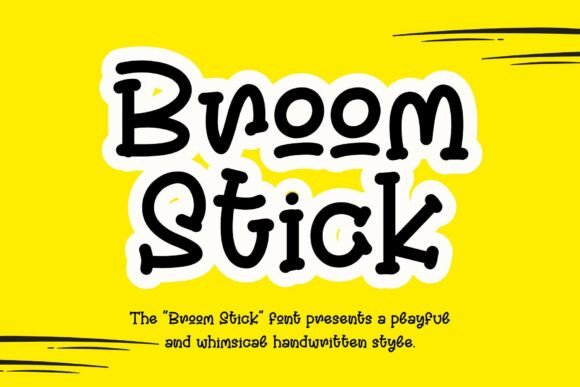
Broom Stick Font: A Playful and Whimsical Handwritten Style
The Broom Stick font is a delightful and charming handwritten style that exudes a playful and whimsical vibe. Its tall, rounded characters and slightly irregular baseline give it a casual and friendly design that’s perfect for a variety of creative projects. In this article, we’ll explore the features and benefits of the Broom Stick font, and discuss how it can be used to add a touch of joy and imagination to your designs.
What is Broom Stick Font?
The Broom Stick font is a type of handwritten font that features tall, rounded characters with a slightly irregular baseline. Its casual and friendly design gives off a lighthearted and fun vibe, making it perfect for projects that aim to express joy and imagination. The font’s playful and whimsical style is reminiscent of children’s books and cartoon titles, making it a great choice for designs that require a youthful and energetic feel.
Features of Broom Stick Font
The Broom Stick font has several features that make it a unique and versatile design. Some of its key features include:
- Tall and rounded characters: The font’s tall and rounded characters give it a playful and whimsical feel that’s perfect for children’s books and cartoon titles.
- Slightly irregular baseline: The font’s slightly irregular baseline adds to its casual and friendly design, giving it a handmade feel that’s perfect for creative projects.
- Casual and friendly design: The font’s casual and friendly design makes it perfect for projects that require a lighthearted and fun vibe.
Benefits of Using Broom Stick Font
The Broom Stick font offers several benefits for designers and creatives. Some of its key benefits include:
- Perfect for children’s books and cartoon titles: The font’s playful and whimsical style makes it perfect for children’s books and cartoon titles that require a youthful and energetic feel.
- Great for product packaging: The font’s casual and friendly design makes it perfect for product packaging that requires a lighthearted and fun vibe.
- Ideal for creative projects: The font’s playful and whimsical style makes it perfect for creative projects that aim to express joy and imagination.
- Use it for headings and titles: The font’s playful and whimsical style makes it perfect for headings and titles that require a lighthearted and fun vibe.
The Broom Stick font is a playful and whimsical handwritten style that’s perfect for a variety of creative projects. Its tall, rounded characters and slightly irregular baseline give it a casual and friendly design that’s perfect for children’s books, cartoon titles, product packaging, and creative projects that aim to express joy and imagination. With its unique features and benefits, the Broom Stick font is a great choice for designers and creatives looking to add a touch of joy and imagination to their designs.
- What is the Broom Stick font?: The Broom Stick font is a type of handwritten font that features tall, rounded characters with a slightly irregular baseline.
- What is the Broom Stick font used for?: The font is perfect for children’s books, cartoon titles, product packaging, and creative projects that aim to express joy and imagination.